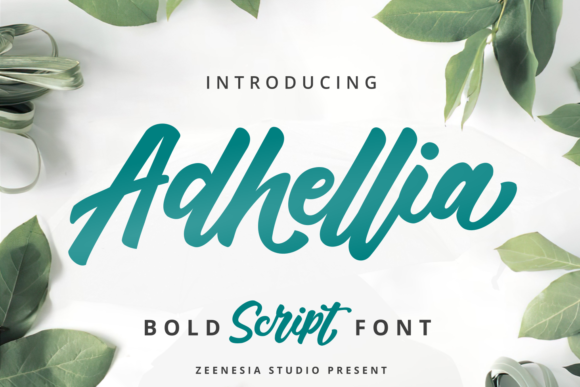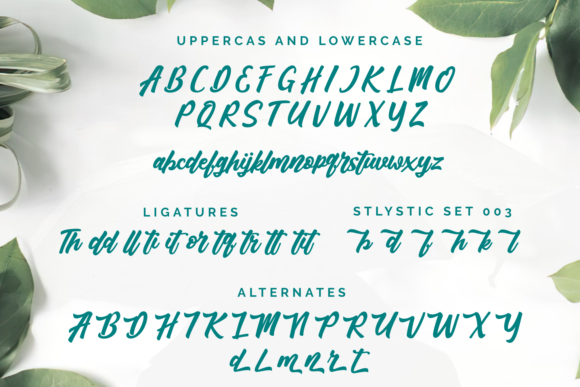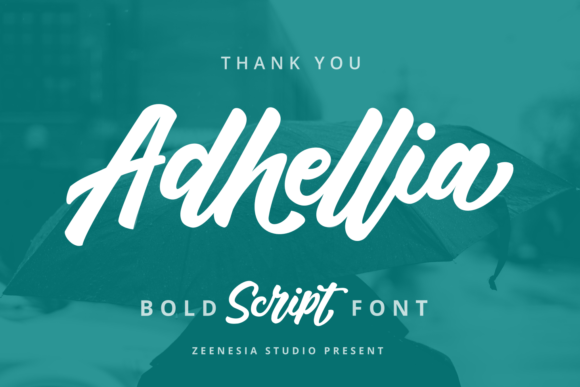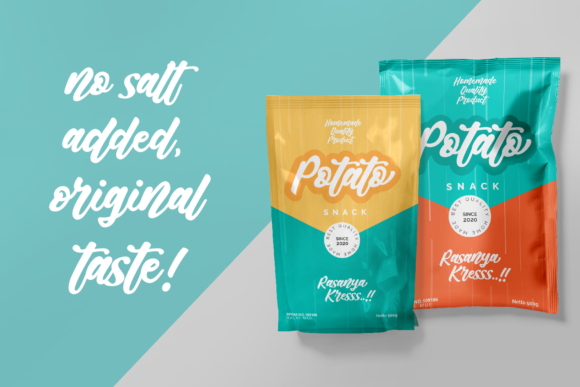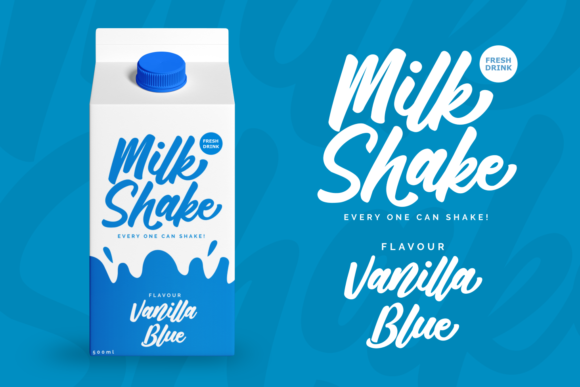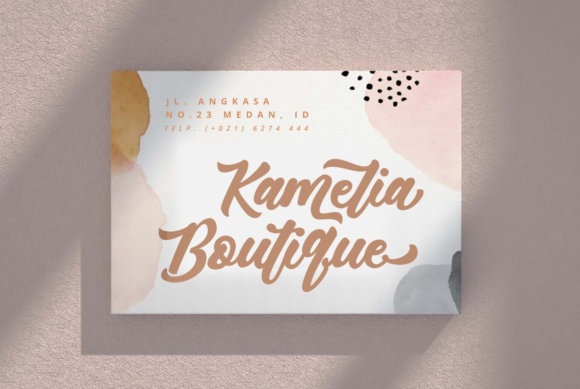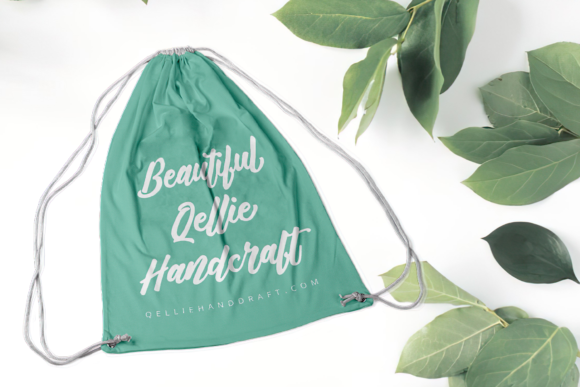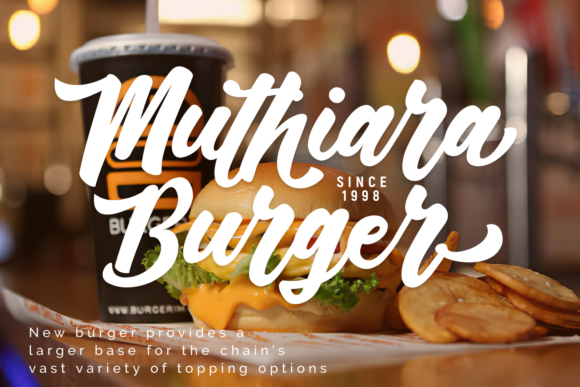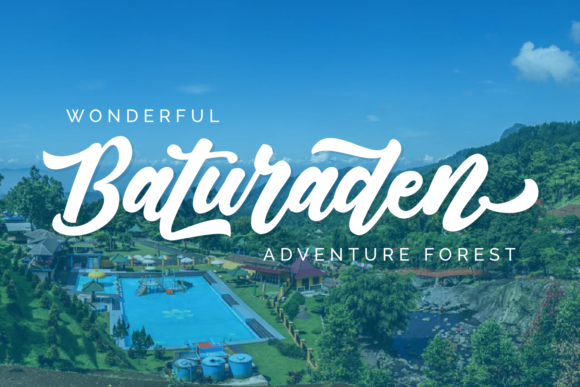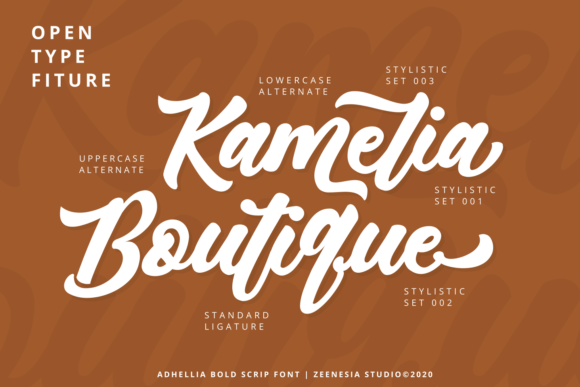
Adhellia Font
About Adhellia Font
Adhellia is a sweet and brushed handwritten font. This font is PUA encoded which means you can access all of the glyphs and swashes with ease! Assertive and flowing, this font will make each of your creations come alive!